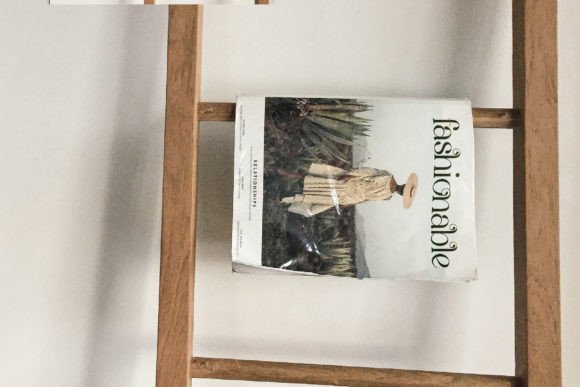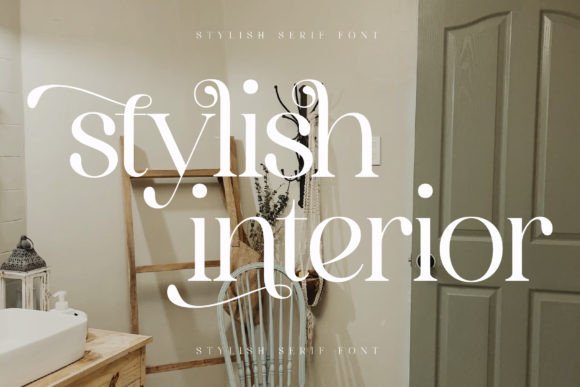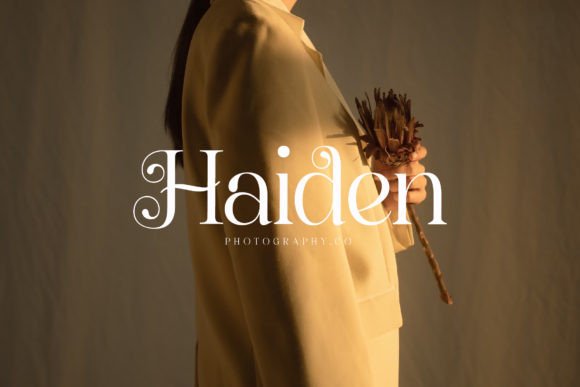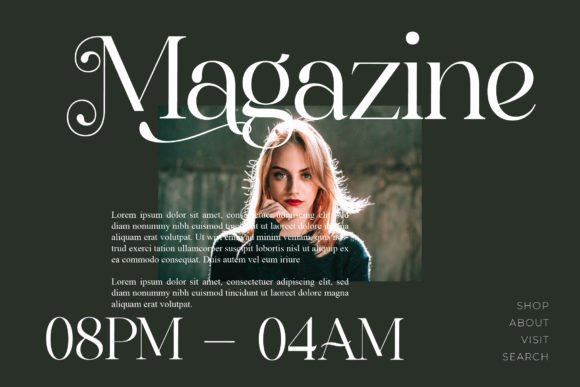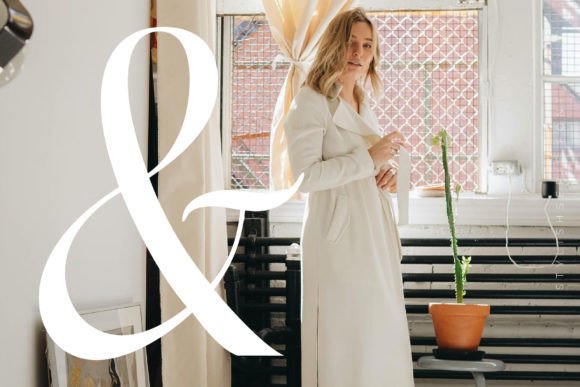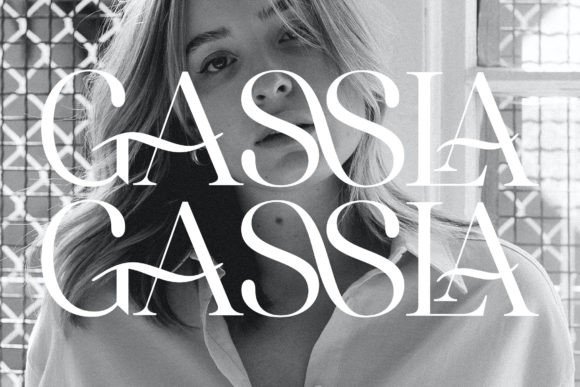
Introduction to Marllgon Font
Remember the moment when you finally found the perfect font to elevate your design project? For many designers, this moment is like striking gold. It’s the instant when all the elements come together, and the design takes on a life of its own. For those who’ve been searching for that elusive font, we’re excited to introduce you to the Marllgon Font – a modern and classy serif font that’s sure to leave a lasting impression.
Whether you’re working on an elegant logo, a luxury book title, or a high-end fashion brand, the Marllgon Font is the perfect design resource to add that extra touch of sophistication. Its unique style and fancy look make it an ideal choice for creative projects that demand a high level of quality and attention to detail.
Key Features of Marllgon Font
- High-quality, elegant design perfect for creative projects and design resources.
- Designed with a large x-height and subtle flair, ideal for use in titles, headings, and logos.
- Unique characteristics: dynamic letter spacing, ornate flourishes, and sophisticated typography.
Honest Review: Marllgon Font
I recently had the chance to work with the Marllgon Font for a creative project, and I must say, I was quite impressed. This font is a great addition to any designer’s collection, especially for those looking for a unique and high quality design resource.
- ✨ Beautifully designed characters: The Marllgon Font has some stunning characters that will elevate any design to the next level.
- ⚠️ Limited language support: The Marllgon Font seems to only support a limited number of languages, which might be a drawback for some designers.
- ⚠️ Transparent background: The font’s transparent background can sometimes make it difficult to use with certain design elements.
Overall, I think the Marllgon Font is a great resource for designers. While it may have some limitations, its unique design and free availability make it a valuable addition to any design collection. I would definitely recommend it for creative projects where a high quality font is needed.
Tips for Getting the Most Out of Marllgon Font
To get the most out of the Marllgon Font, use it in creative projects such as logo designs, social media graphics, and website headers. You can also pair it with other design elements to create a unique and eye-catching look.
Common Use Cases for Marllgon Font
The Marllgon Font is commonly used in design projects such as:
- Logo designs
- Website headers
- Print materials